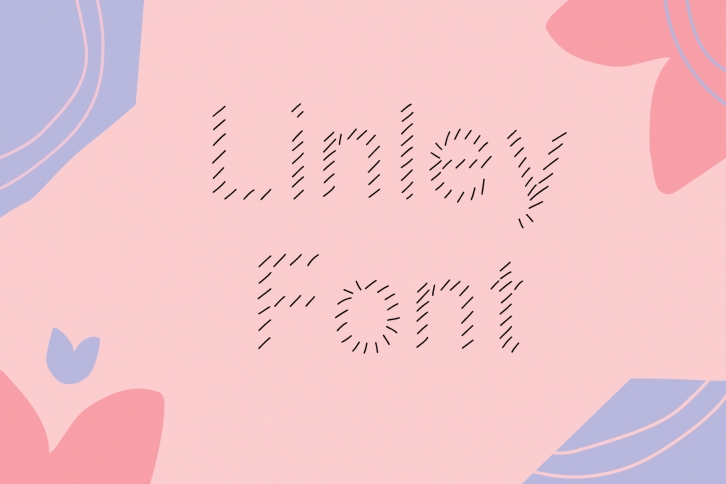
Linley Font is a hand written font and take and idea from a topping cake rod and built to cute characters which good for fun or kids content. You can add them to make it great for creative projects.